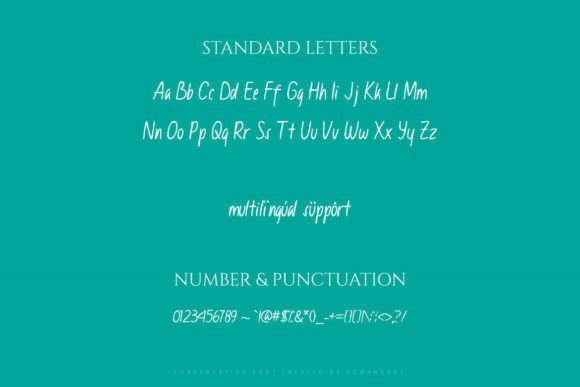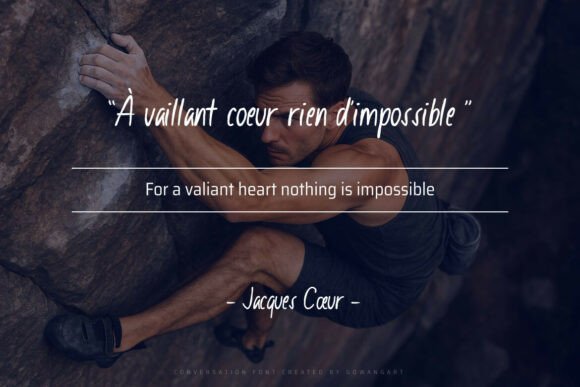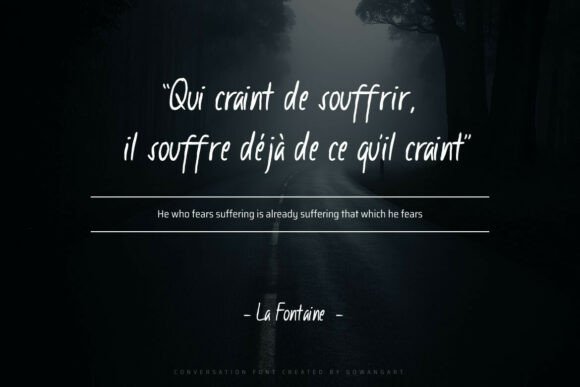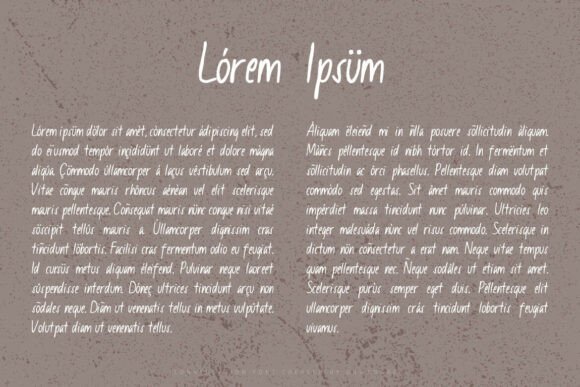
Introducing Conversation Font: The Friendly and Versatile Typeface for Creative Projects
In the world of design, typography plays a crucial role in conveying messages, evoking emotions, and creating lasting impressions. A well-chosen font can elevate a project from ordinary to extraordinary, making it essential for designers and crafters to select typefaces that are both aesthetically pleasing and functional. This is where Conversation Font comes in—a simple yet versatile font designed to suit a wide range of creative needs.
The Essence of Conversation Font
Conversation Font is characterized by its clean and approachable letterforms, which give it a natural and easygoing feel, reminiscent of a friendly chat. This typeface is crafted to be effortlessly adaptable, making it an excellent choice for various design applications, including social media graphics, branding materials, editorial work, and everyday projects. The font’s simplicity is its strength, allowing it to maintain clarity and warmth across different mediums, whether digital or print.
Key Features of Conversation Font
- Clean and Approachable Design: The font’s clean lines and approachable letterforms make it highly legible and friendly, perfect for creating a welcoming atmosphere in any design.
- Versatility: Conversation Font is designed to be versatile, making it suitable for a wide range of projects, from social media posts and branding materials to editorial content and more.
- Easygoing and Natural Feel: The typeface has a natural, easygoing vibe that makes it perfect for designs that aim to feel approachable and informal.
- Clarity and Warmth: Despite its simplicity, Conversation Font does not compromise on clarity or warmth, making it an excellent choice for both digital and print designs.
Applications of Conversation Font
The versatility of Conversation Font makes it an invaluable asset for designers and crafters working on a variety of projects. Here are some of the key areas where this font shines:
- Social Media Graphics: Create engaging and friendly social media posts that stand out. The font’s clean and approachable design works well in the fast-paced environment of social media.
- Branding Materials: Establish a warm and welcoming brand identity with Conversation Font. It’s perfect for logos, business cards, and other branding materials.
- Editorial Work: Whether you’re working on articles, blogs, or magazines, this font provides the clarity and readability needed for editorial content.
- Everyday Projects: From crafting personal planners to designing posters, Conversation Font’s simplicity and versatility make it a go-to choice for a wide range of personal and professional projects.
Why Choose Conversation Font?
In a world filled with complex and overly stylized fonts, Conversation Font stands out for its simplicity and approachability. Here are a few reasons why designers and crafters should consider adding it to their toolkit:
- Universal Appeal: Its clean design and easygoing feel make it universally appealing, suitable for projects aimed at a broad audience.
- Legibility: The font’s high legibility ensures that messages are conveyed clearly, making it perfect for both digital screens and print.
- Time-Saving: With Conversation Font, designers can save time on font selection and adjustments, allowing them to focus more on creativity and less on technicalities.
| Author | gowangart |
Conversation Font is a valuable addition to any designer’s or crafter’s toolkit. Its clean and approachable design, versatility, and ability to convey warmth and clarity make it an excellent choice for a wide range of creative projects. Whether you’re designing for digital platforms or print, Conversation Font offers a friendly and reliable solution that can help elevate your work and make it more engaging for your audience.
Embrace the simplicity and versatility of Conversation Font in your next project, and experience how a friendly and approachable typeface can make a significant difference in your design’s impact and effectiveness.